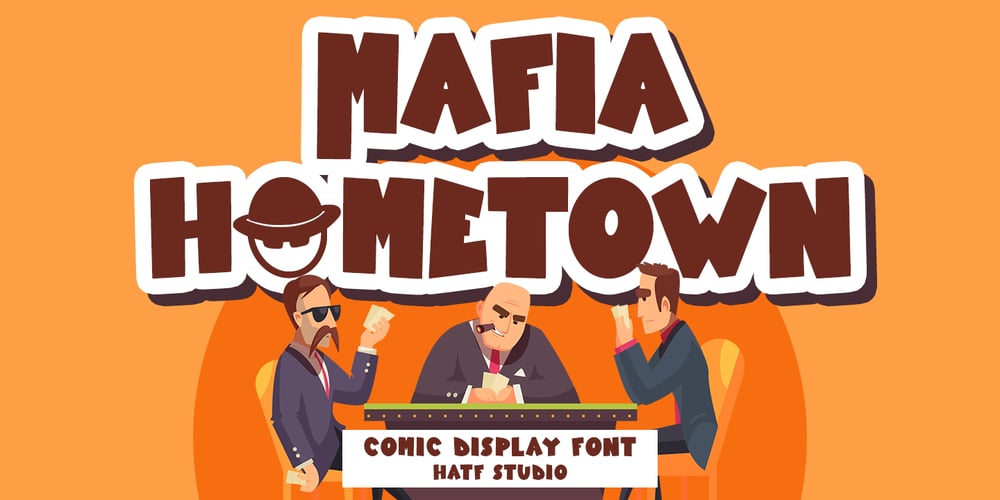
Mafia Hometown
Mafia Hometown font
Mafia Hometown Font Family was designed by Asep Rendi and published by Hatftype. Mafia Hometown contains 1 styles and family package options. Is a Comic Display Font font with distinctive handwritten characters perfect for branding projects, logos, wedding designs, media posts, advertisements, product packaging, product designs, labels, photography, watermarks, invitations, stationery, and any project who need handwritten dishes.Features : • Character Set A-Z • Numerals & Punctuations (OpenType Standard) • Accents (Multilingual characters) • Ligature.